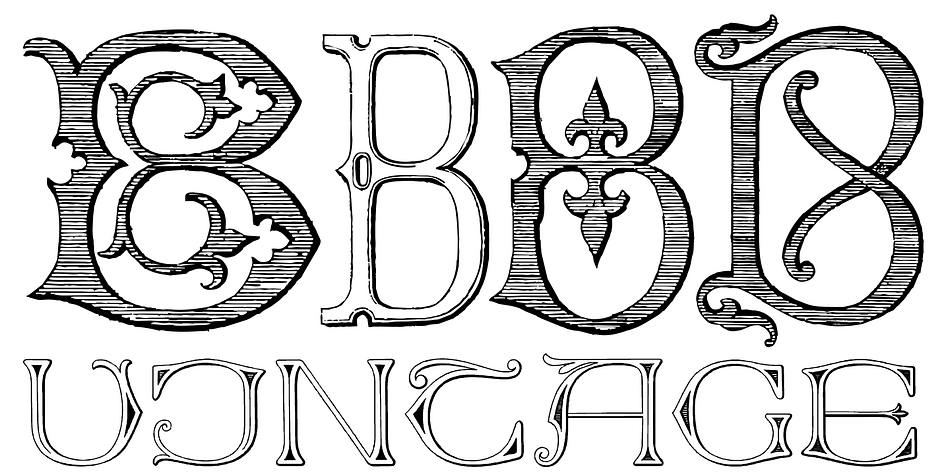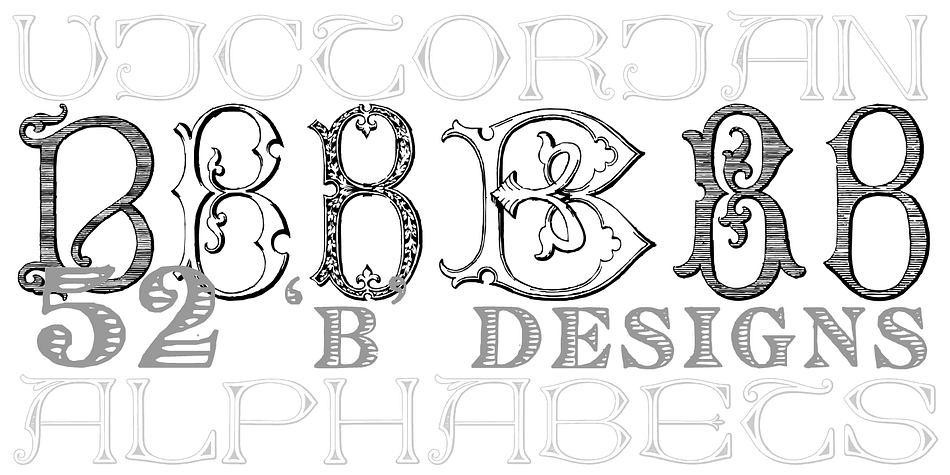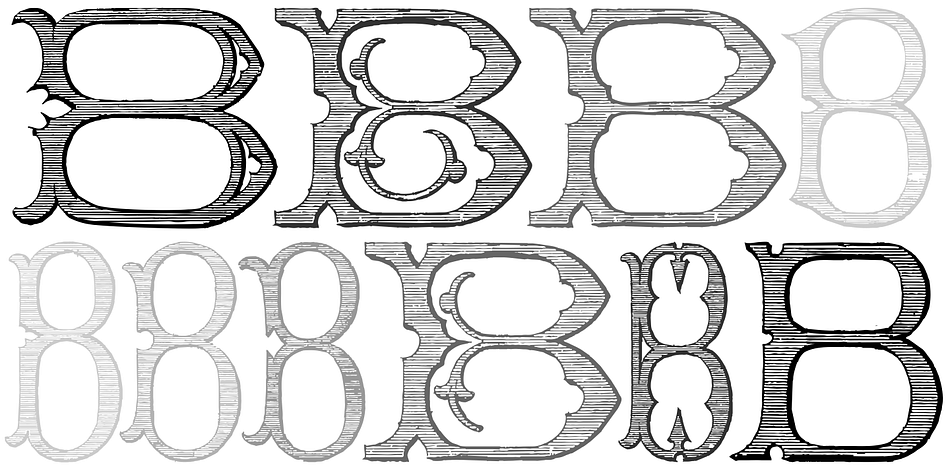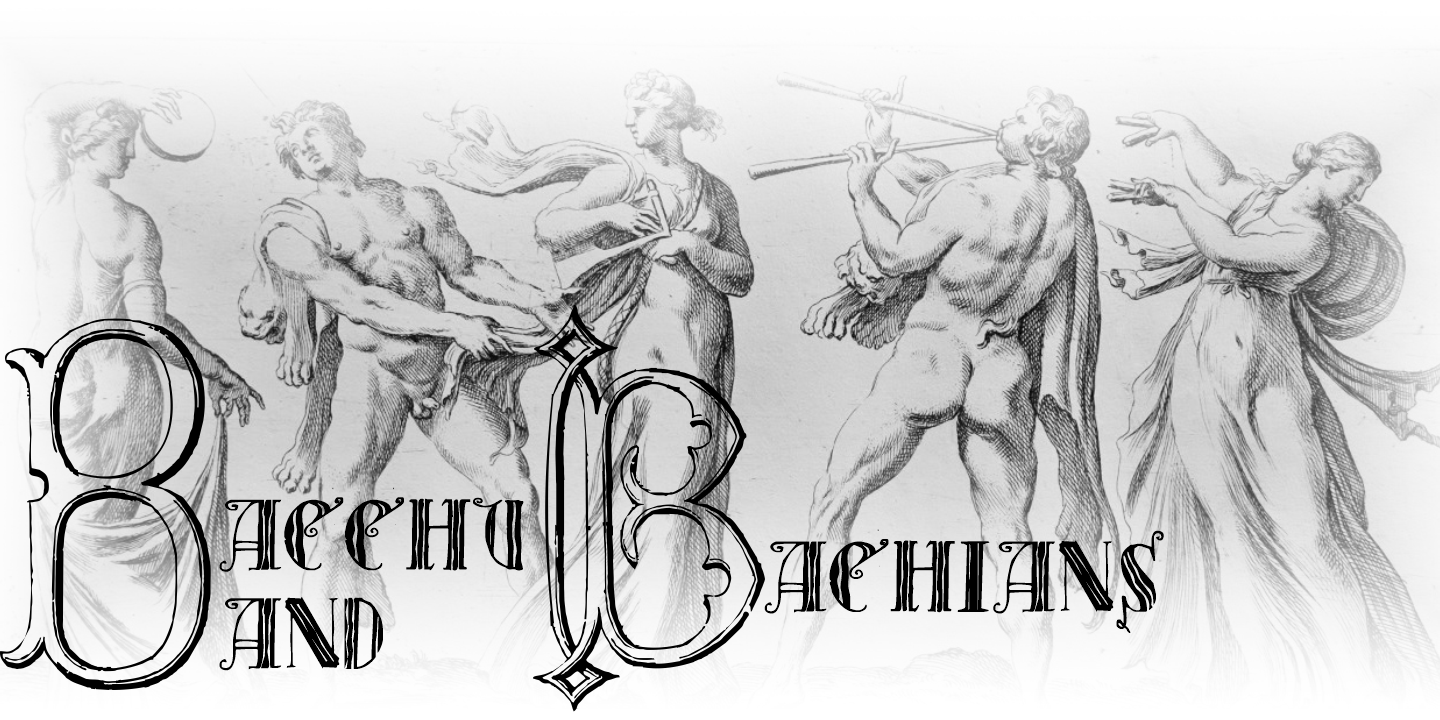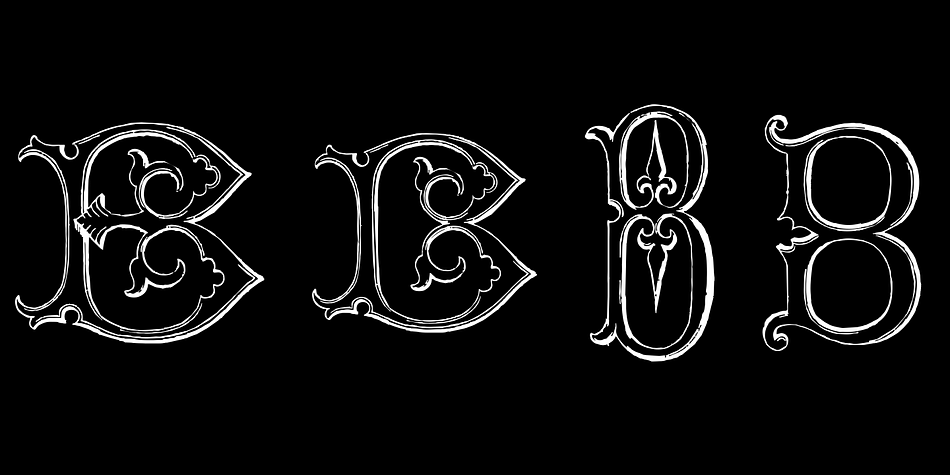
Victorian Alphabets B
Victorian Alphabets B is a display font published by Intellecta Design.
The “Victorian Alphabets B” font has just B’ designs, performing 52 different A’s to your use. Victorian Alphabets is a increasing family of complete victorian style alphabets, researched and developed upon a comprehensive number of vintage books, magazines and catalogues from XIX century.